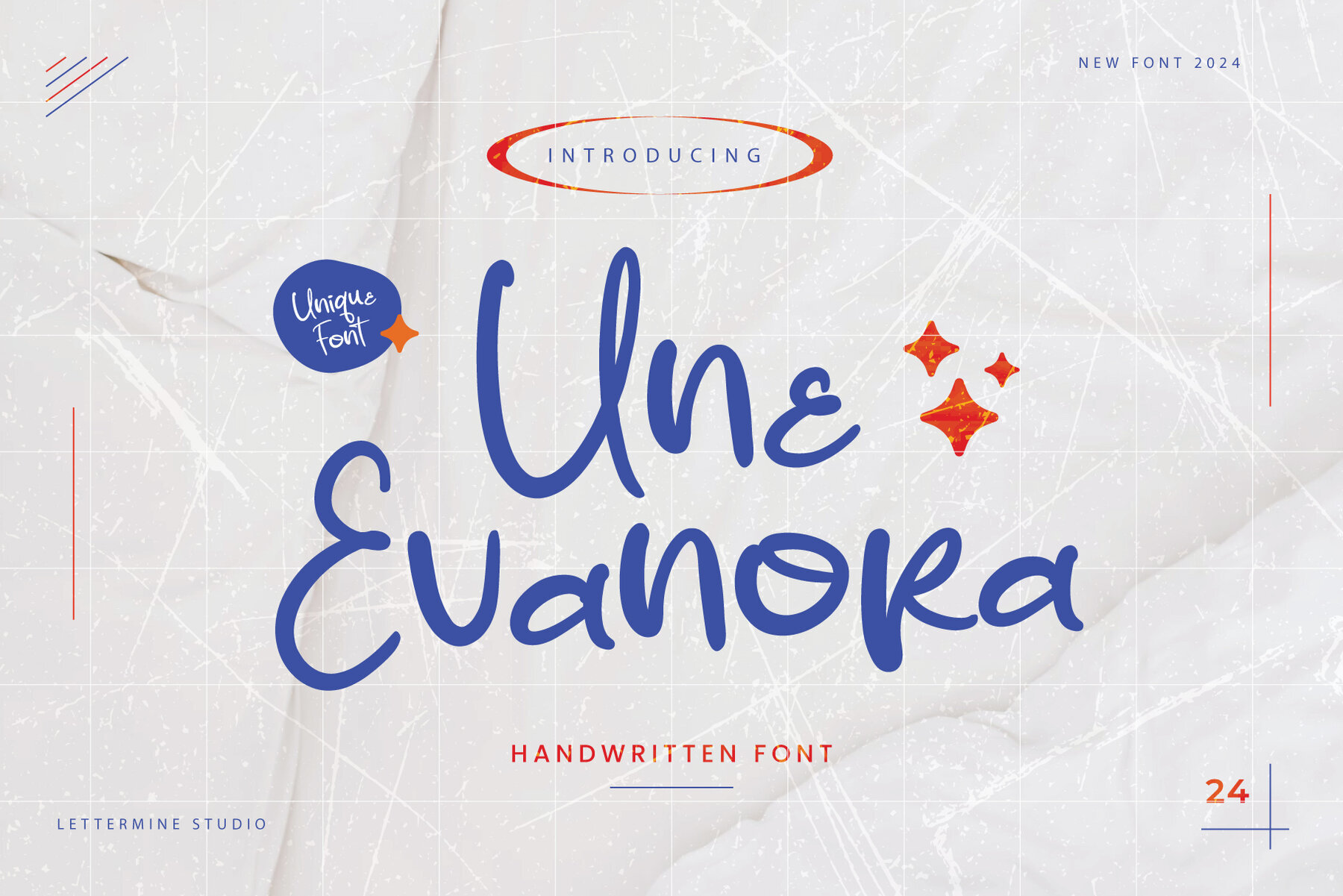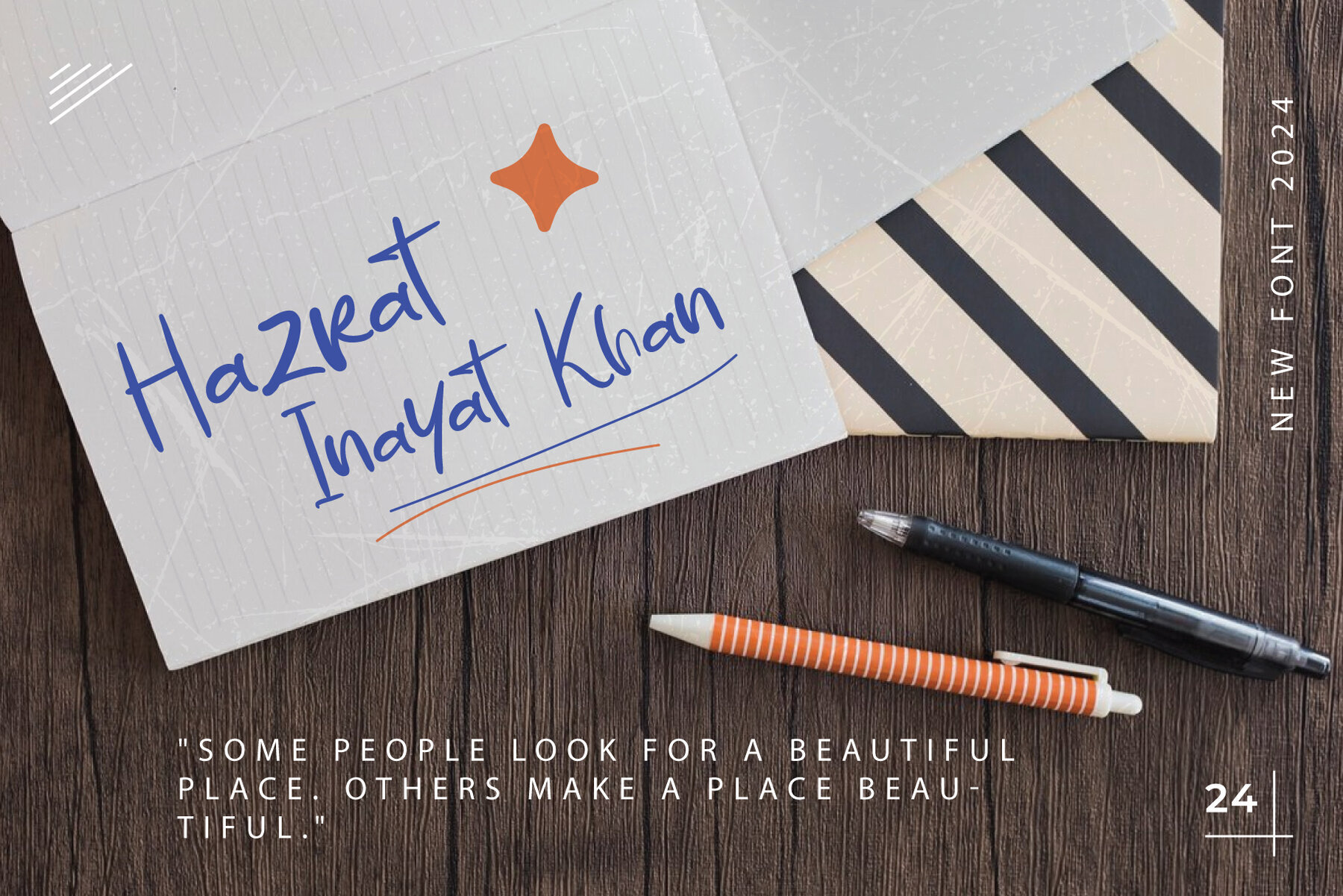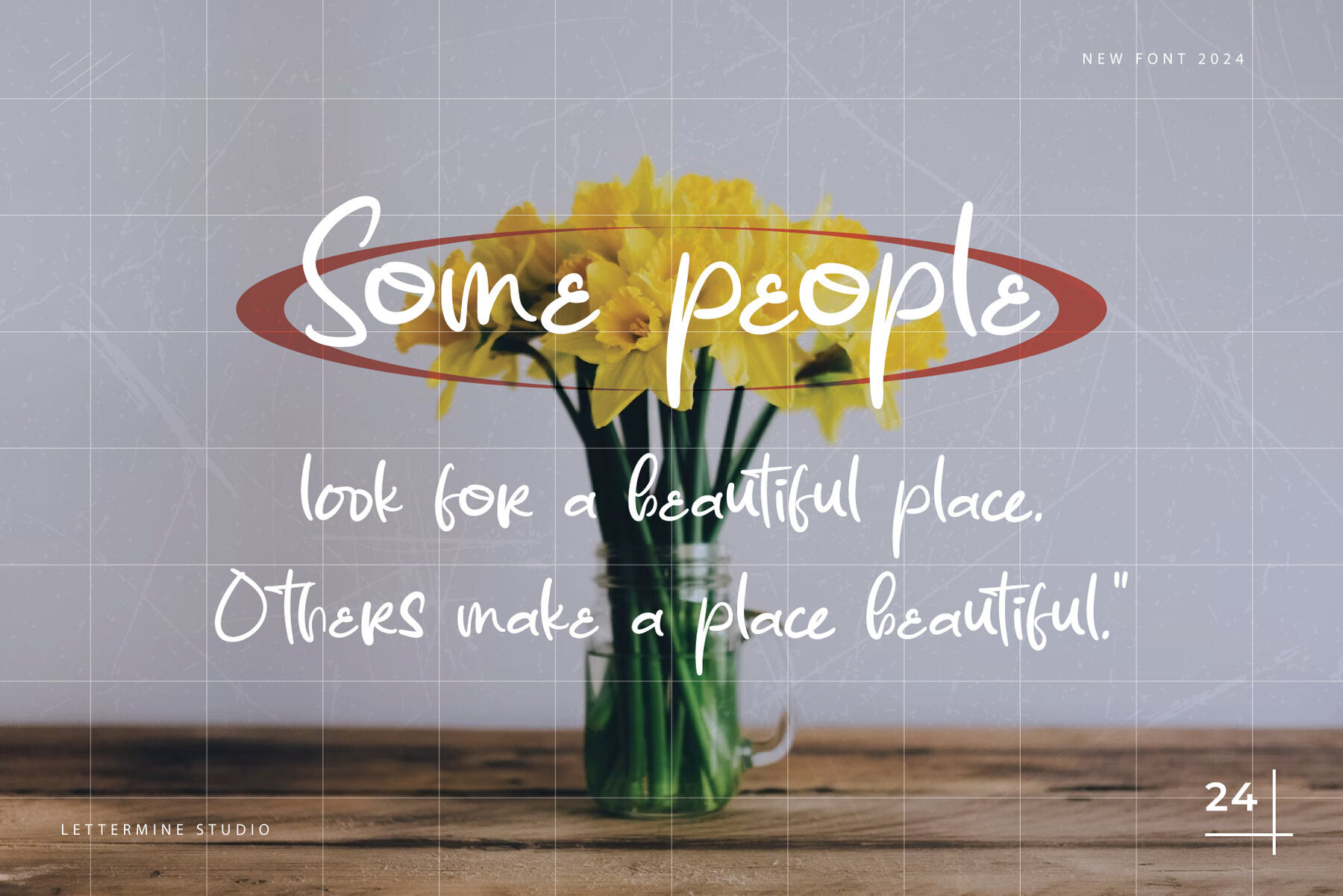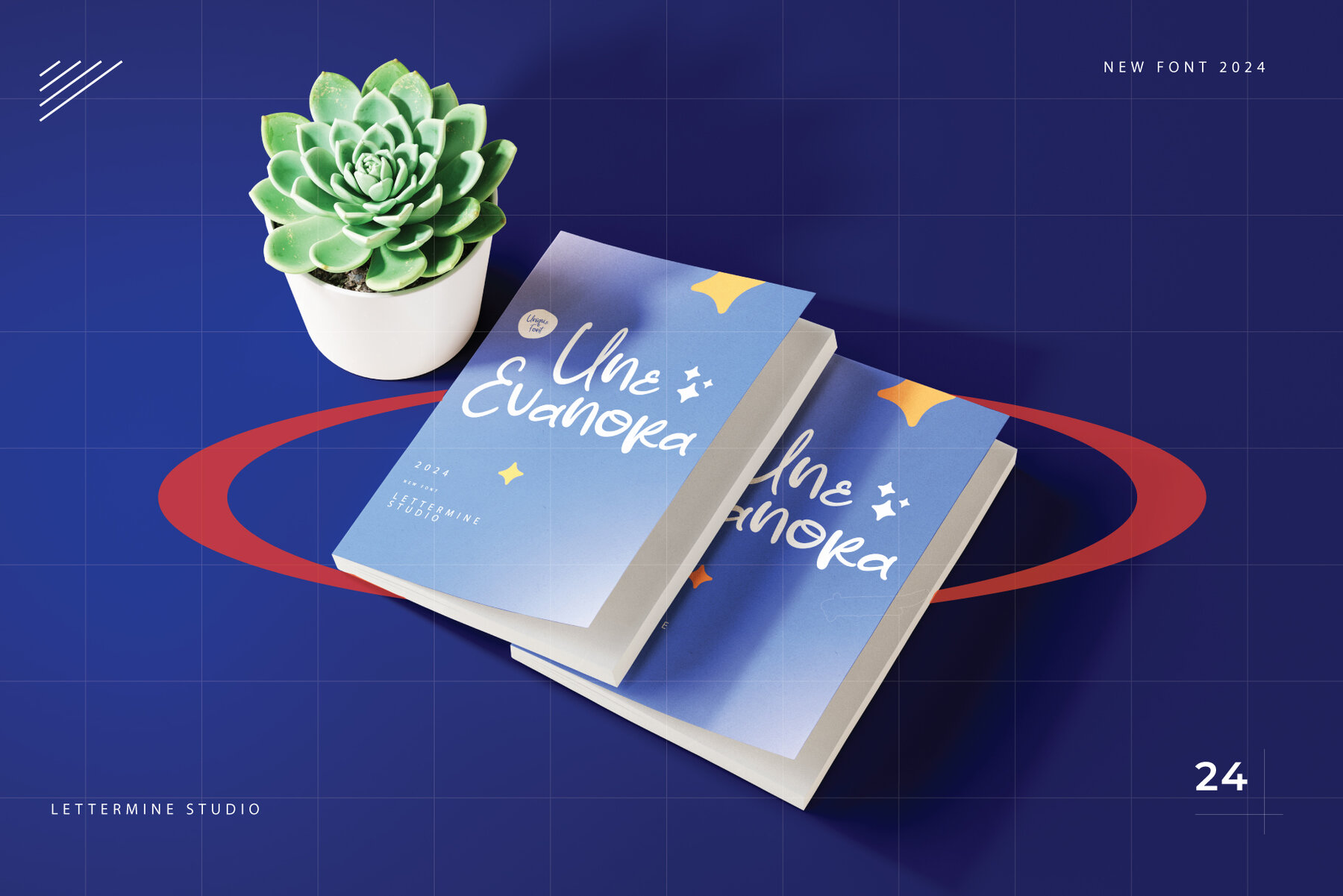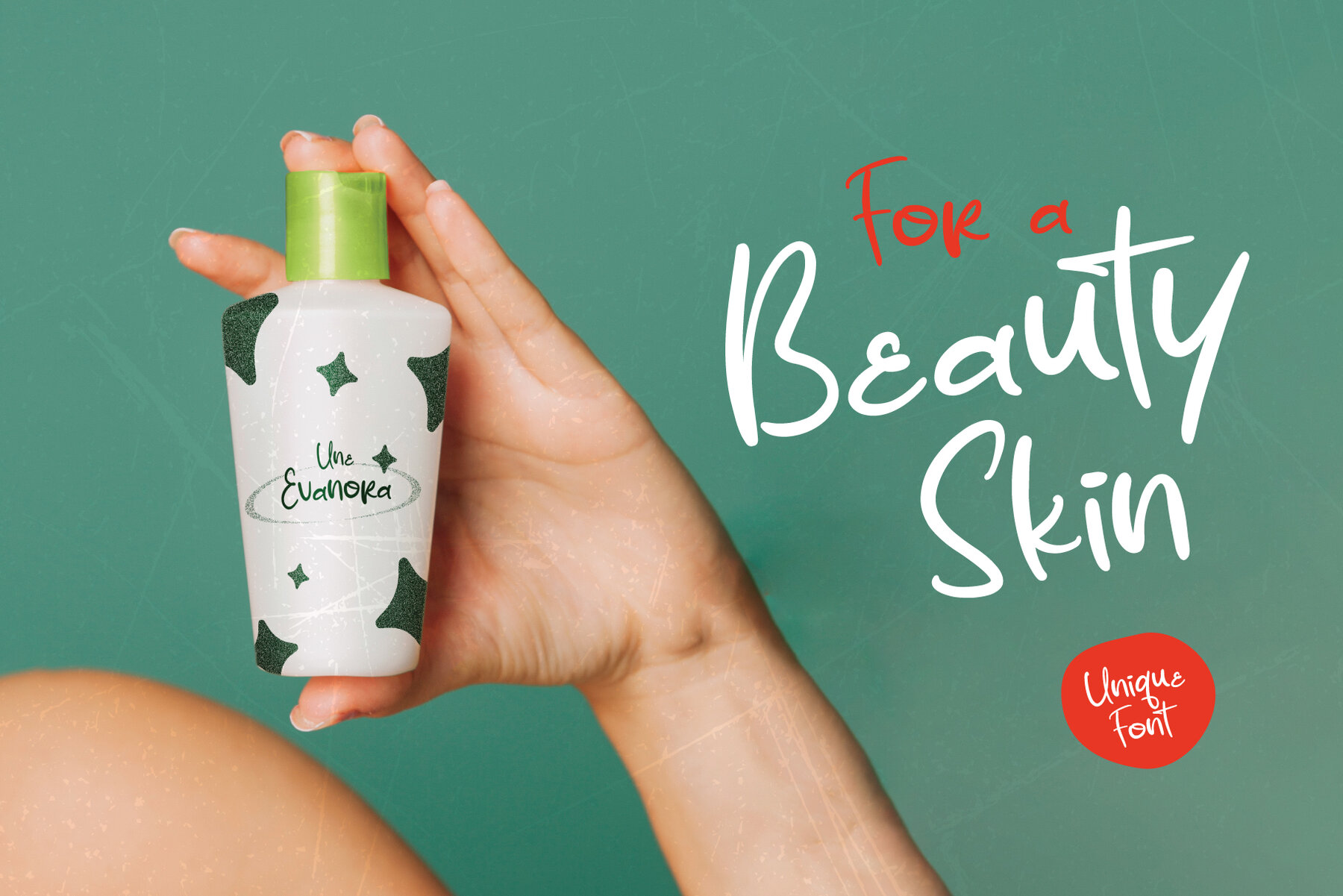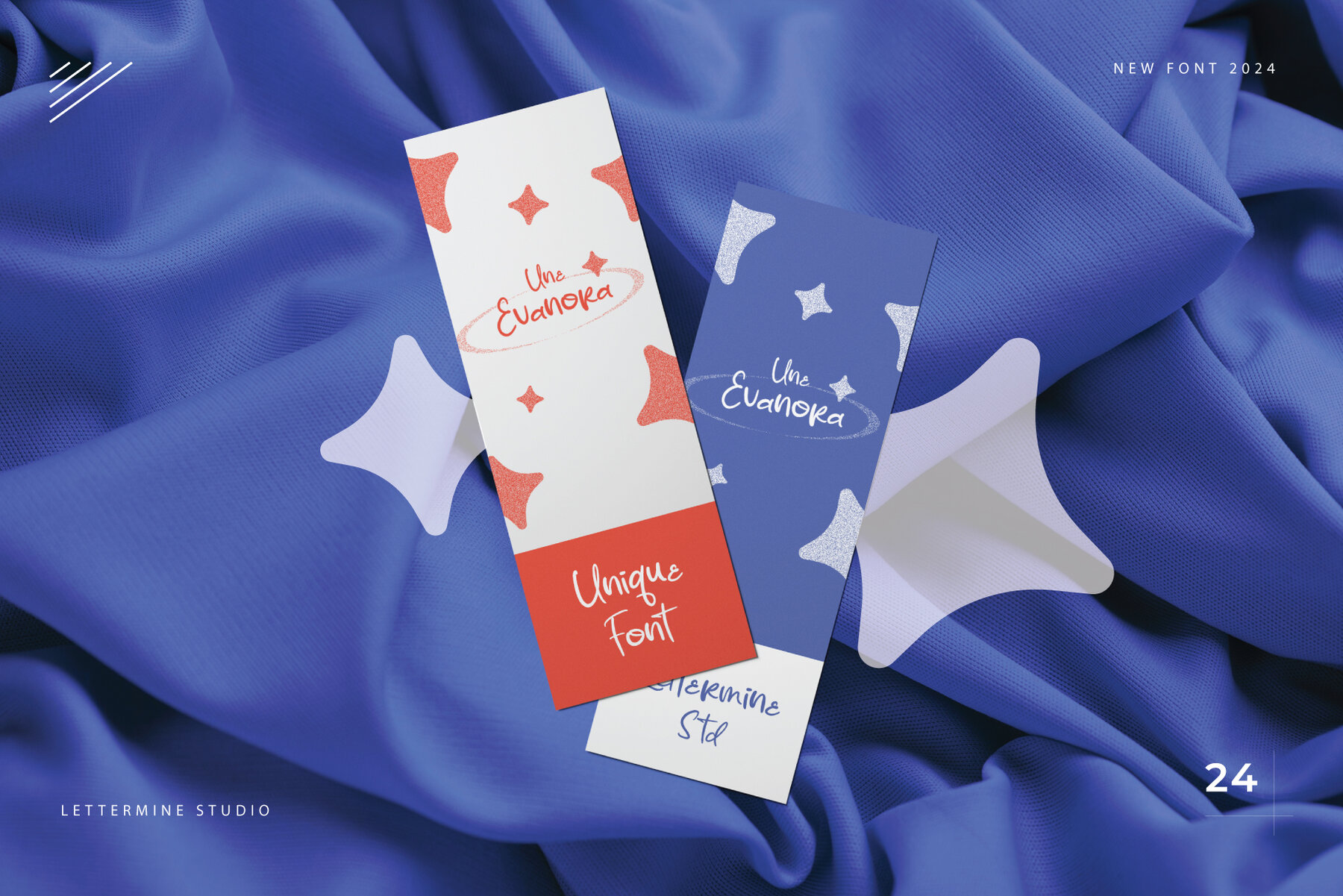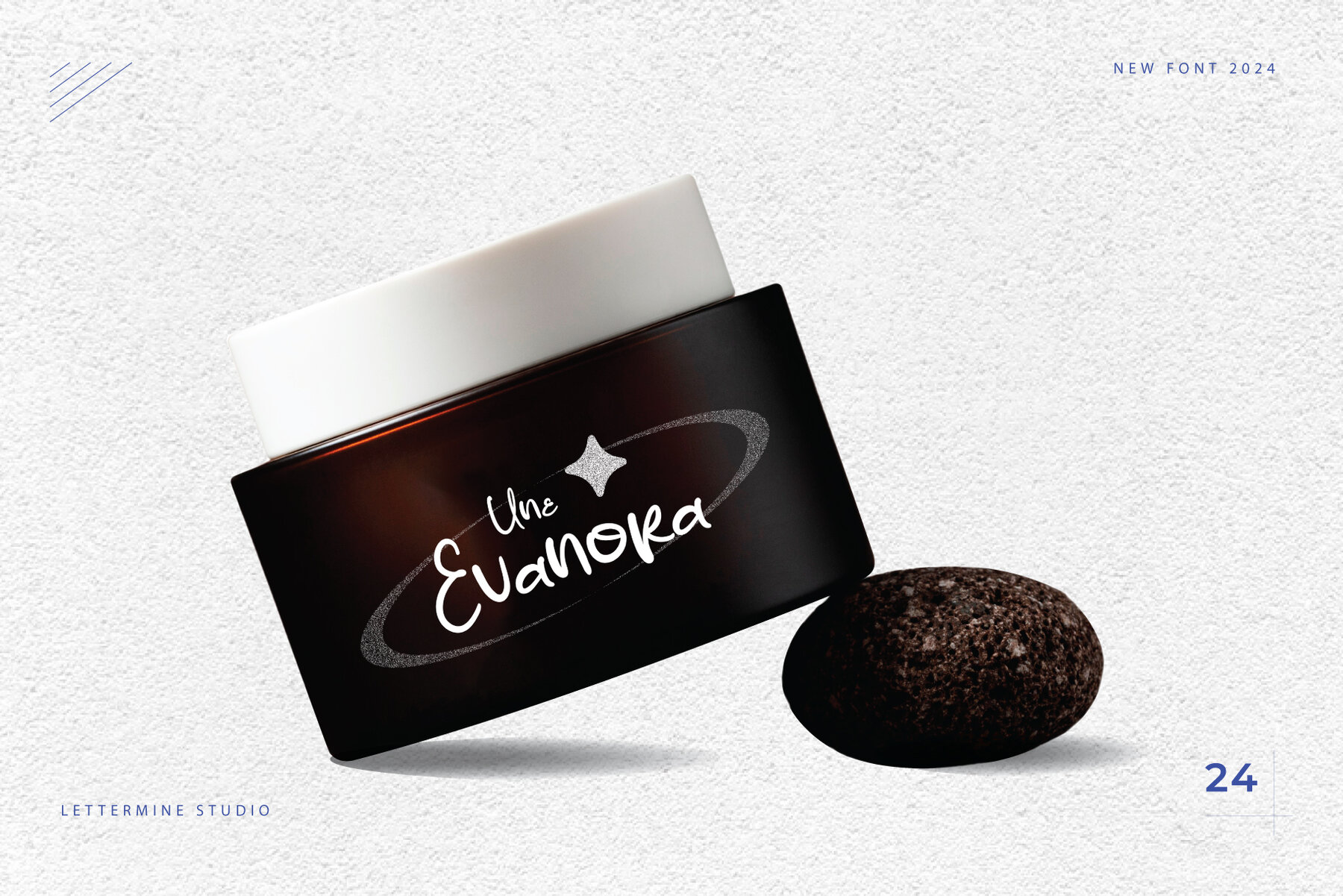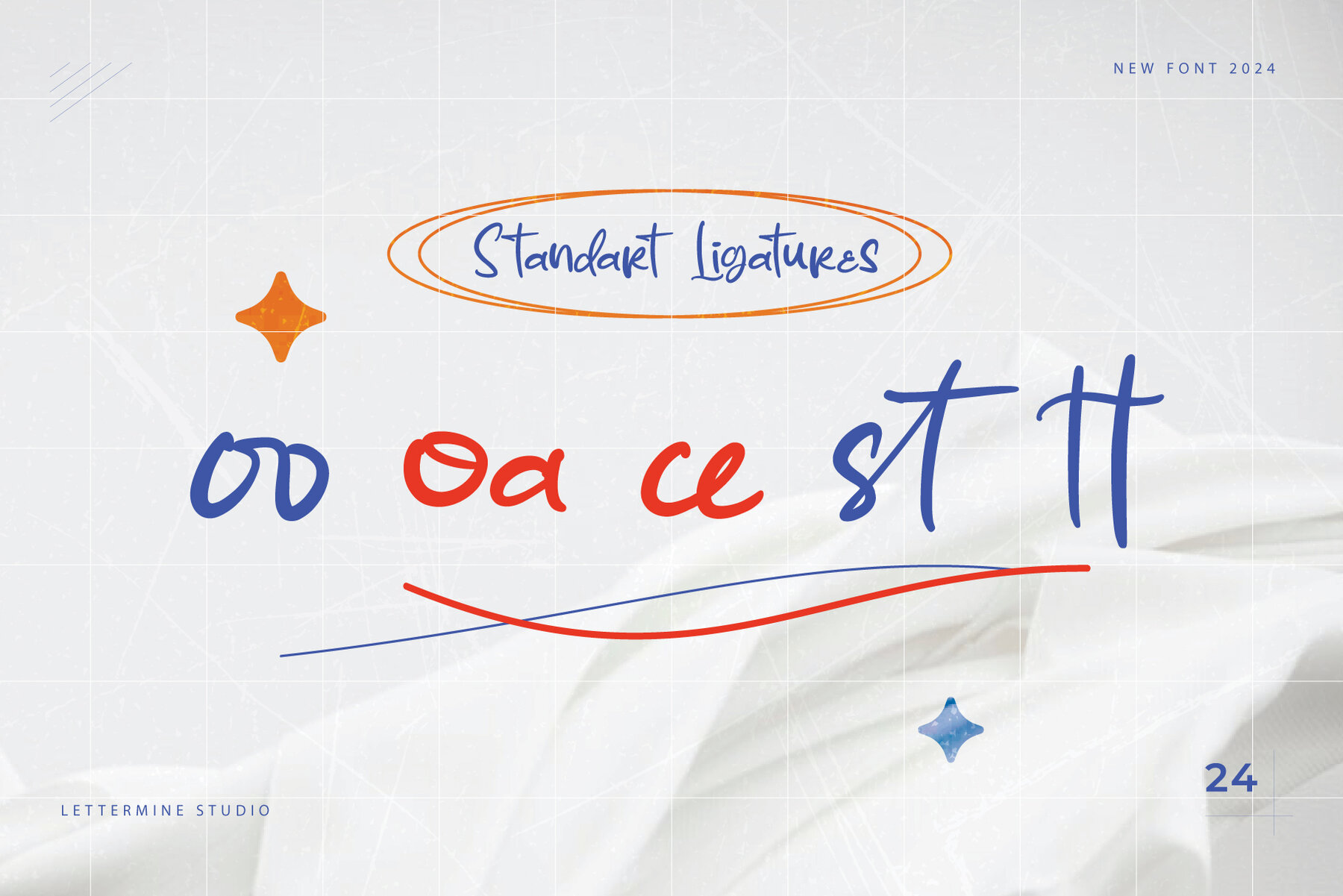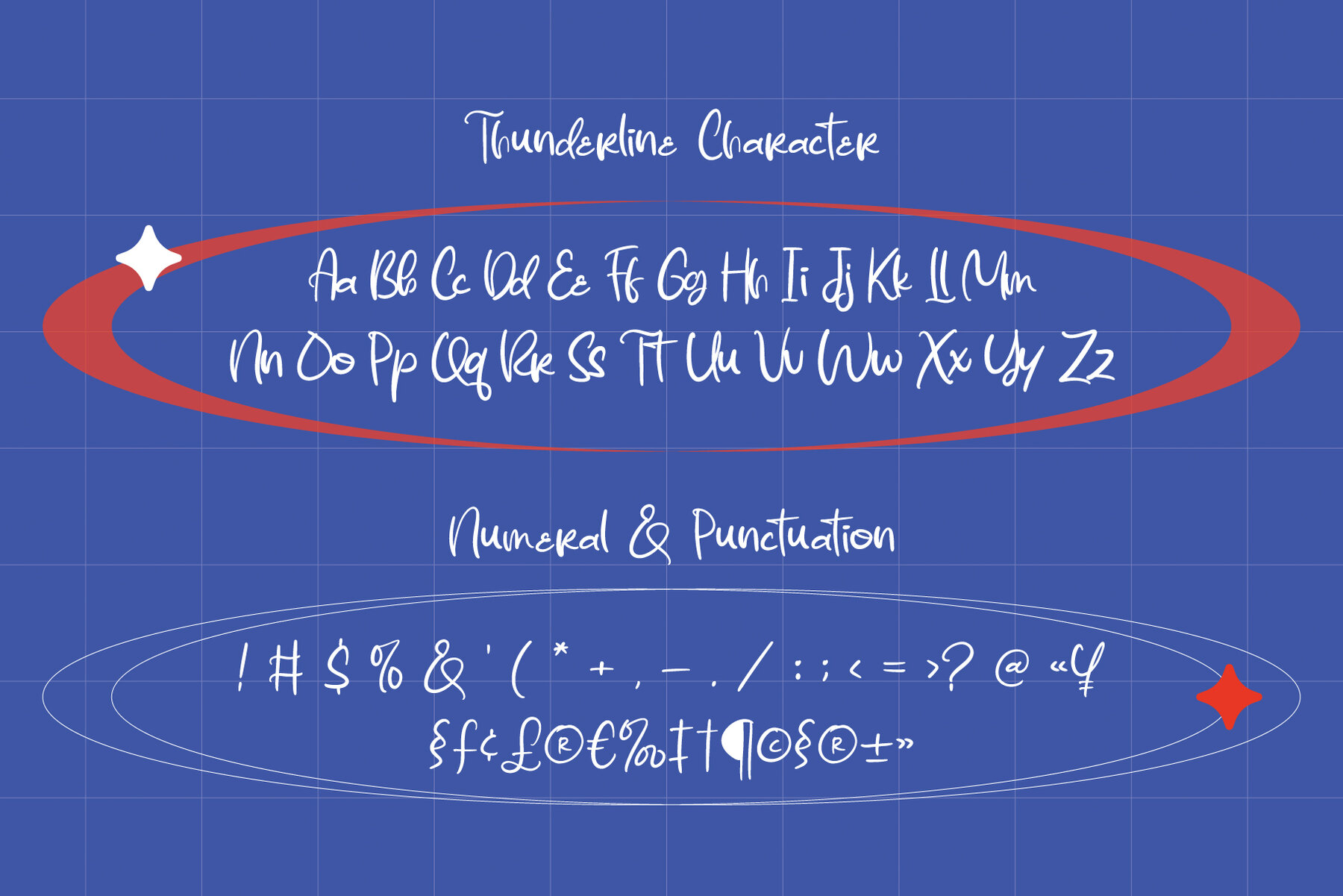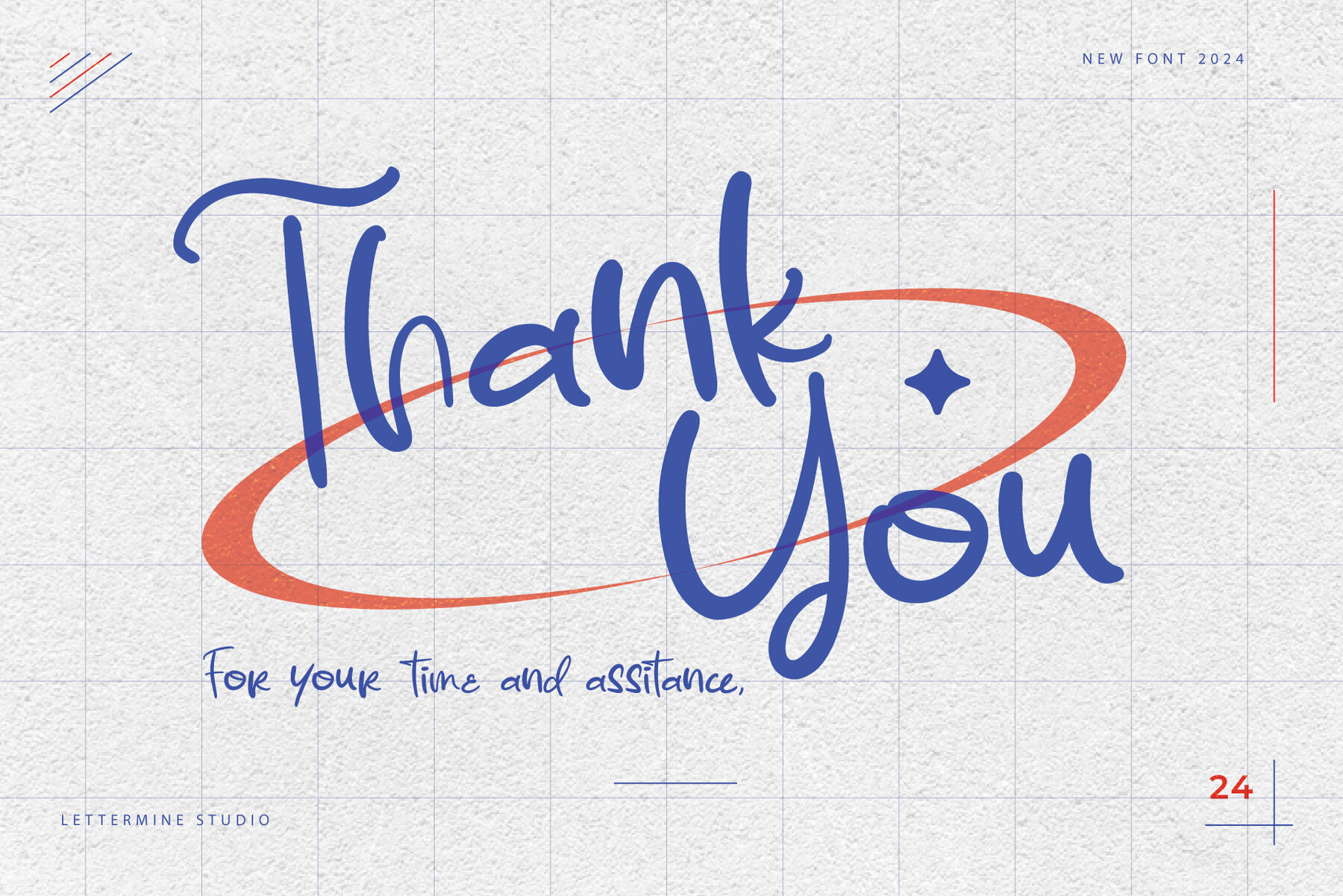
Une Evanora Font
Une Evanora Regular
UNE EVANORA is a charming Script Handwritten font designed to add a touch of elegance and personality to your creative projects. Features: Perfect for: Let UNE EVANORA bring a graceful and handwritten feel to your next project!